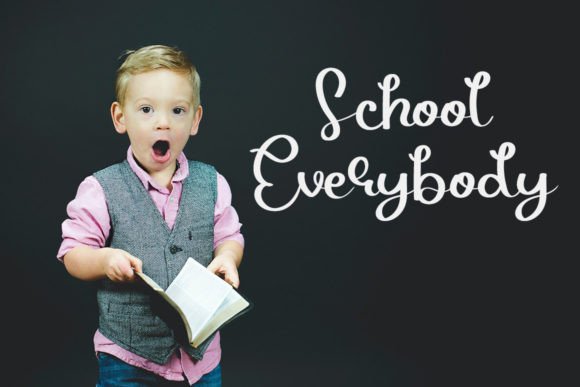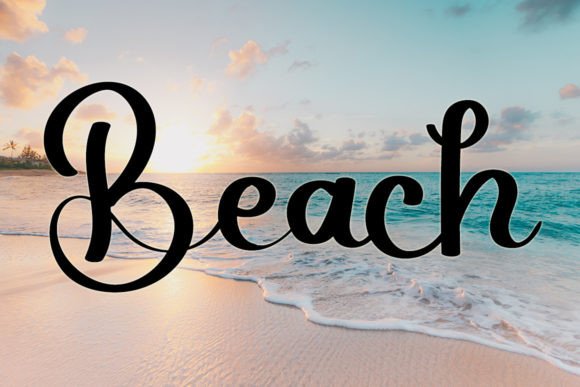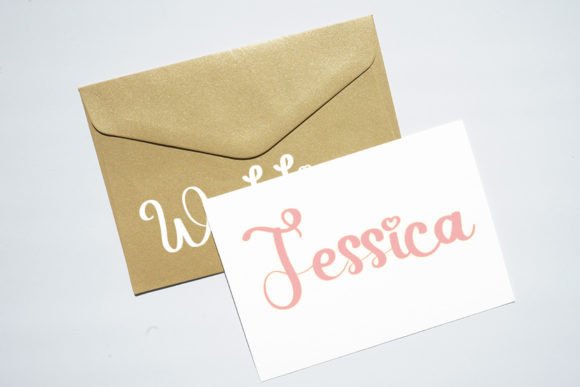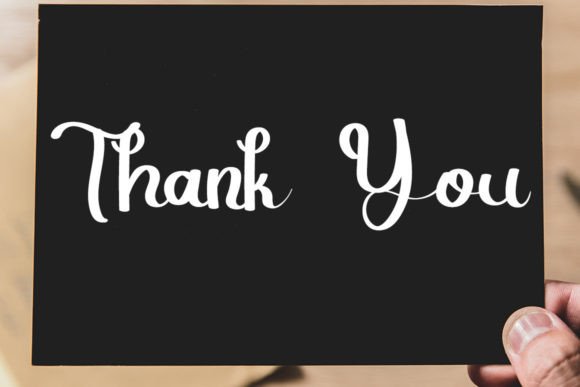
Unleash the Joy in Your Designs
Have you ever sat at your desk, staring at a blank page, trying to bring a new idea to life? The cursor blinks away, taunting you to start. Suddenly, a spark of creativity strikes, and you envision the perfect font – one that exudes elegance, freshness, and joy. That’s when you discover the Breathing Font, a beautiful and sweet typeface that brings your designs to life.
As a designer, you know how crucial the right font can be in making your project stand out. The Breathing Font is more than just a pretty face; it’s a tool that simplifies your design process while adding a touch of sophistication. Whether you’re working on a formal business project or a casual social media campaign, this font is sure to leave a lasting impression.
Breathing Font Key Features
- Unique Characteristics: The Breathing Font is designed with a unique, hand-drawn style that mimics the appearance of breathing. Each character has a subtle, pulsing effect that gives the impression of life and movement.
- Legibility and Readability: The font is designed to be highly legible and readable, even at small font sizes. Its clean lines and simple shapes make it easy to read and understand.
Breathing Font Review
I recently had the chance to work with the Breathing Font, and I must say it’s an interesting font to say the least. Here are my thoughts.
- The font’s unique breathing-like effect gives it a unique and attention-grabbing quality. It’s perfect for headings or titles where you want to make a statement.
- The font is highly customizable, with a wide range of settings available to tweak the breathing effect to your liking.
- The font is well-suited for digital use, with clear and crisp lines that render well on a variety of devices.
- The font’s breathing effect can be overwhelming if used extensively. It’s best to use it sparingly to avoid visual fatigue.
- The font may not be suitable for body text, as the breathing effect can make it difficult to read.
- The font’s customization options can be overwhelming, making it difficult to find the perfect setting.
Overall, I think the Breathing Font is a great choice for headings and titles, but may not be the best fit for body text. With a little caution and restraint, it can add a unique touch to your designs.
Getting the Most Out of Breathing Font
To get the most out of Breathing Font, use it in creative and innovative ways, such as:
– Creating eye-catching headings and titles
– Adding a unique touch to social media graphics and advertisements
– Using it in logo designs and branding materials
– Experimenting with different font sizes and colors to create a visually appealing effect.
Breathing Font is commonly used in:
– Digital marketing and advertising materials
– Logo designs and branding materials
– Creative and artistic projects.
Comparison: While Breathing Font has a more unique and distinctive feel, Open Sans is a more neutral and widely accepted choice. Breathing Font has a more subtle variation in letterforms, whereas Open Sans has a more consistent and streamlined appearance.